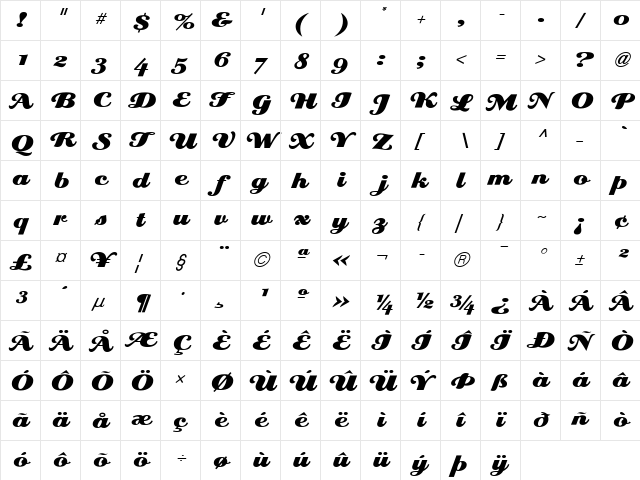
Eclat Medium
| Foundry | Image Club Graphics, Inc |
Design Context for Eclat Typeface
Eclat is a composed and adaptable typeface that performs quietly and consistently across a wide range of design contexts.